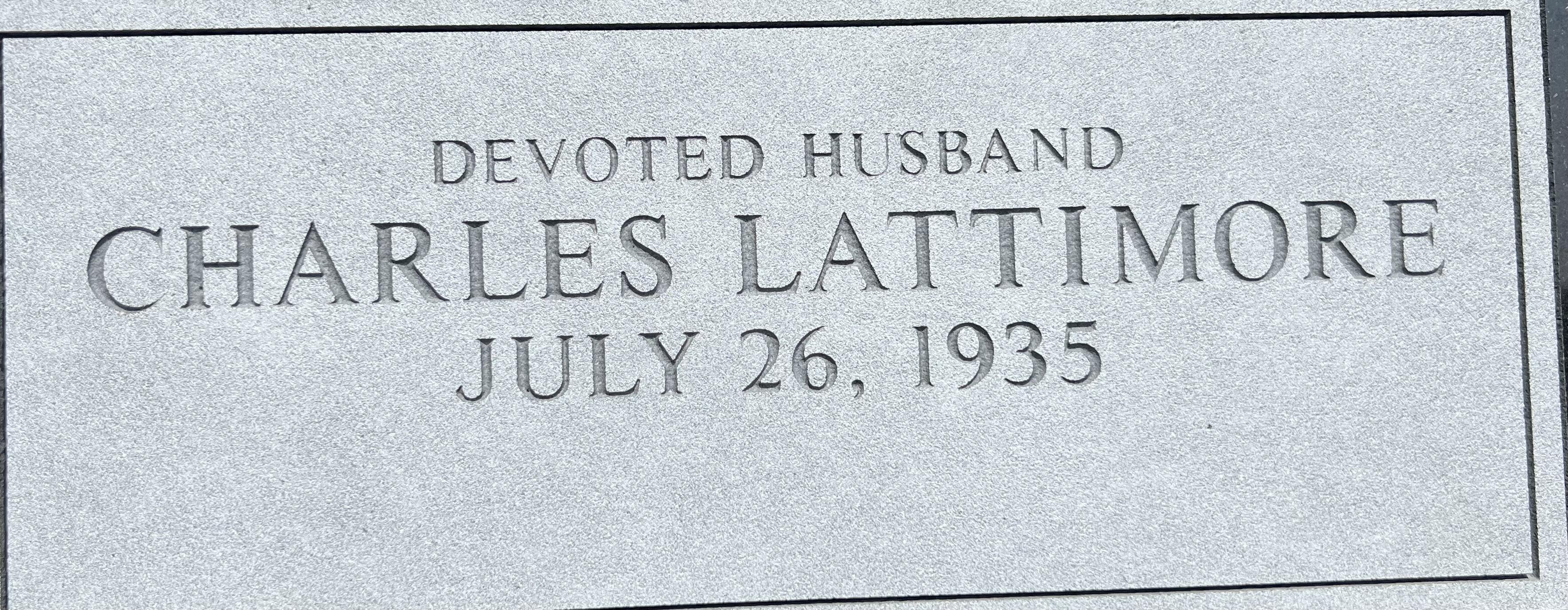
This is a memorial industry version of Times New Roman called Monument Times New Roman. The letters are mostly the same as Times with the notable difference in ‘J’, but the numbers are entirely different.